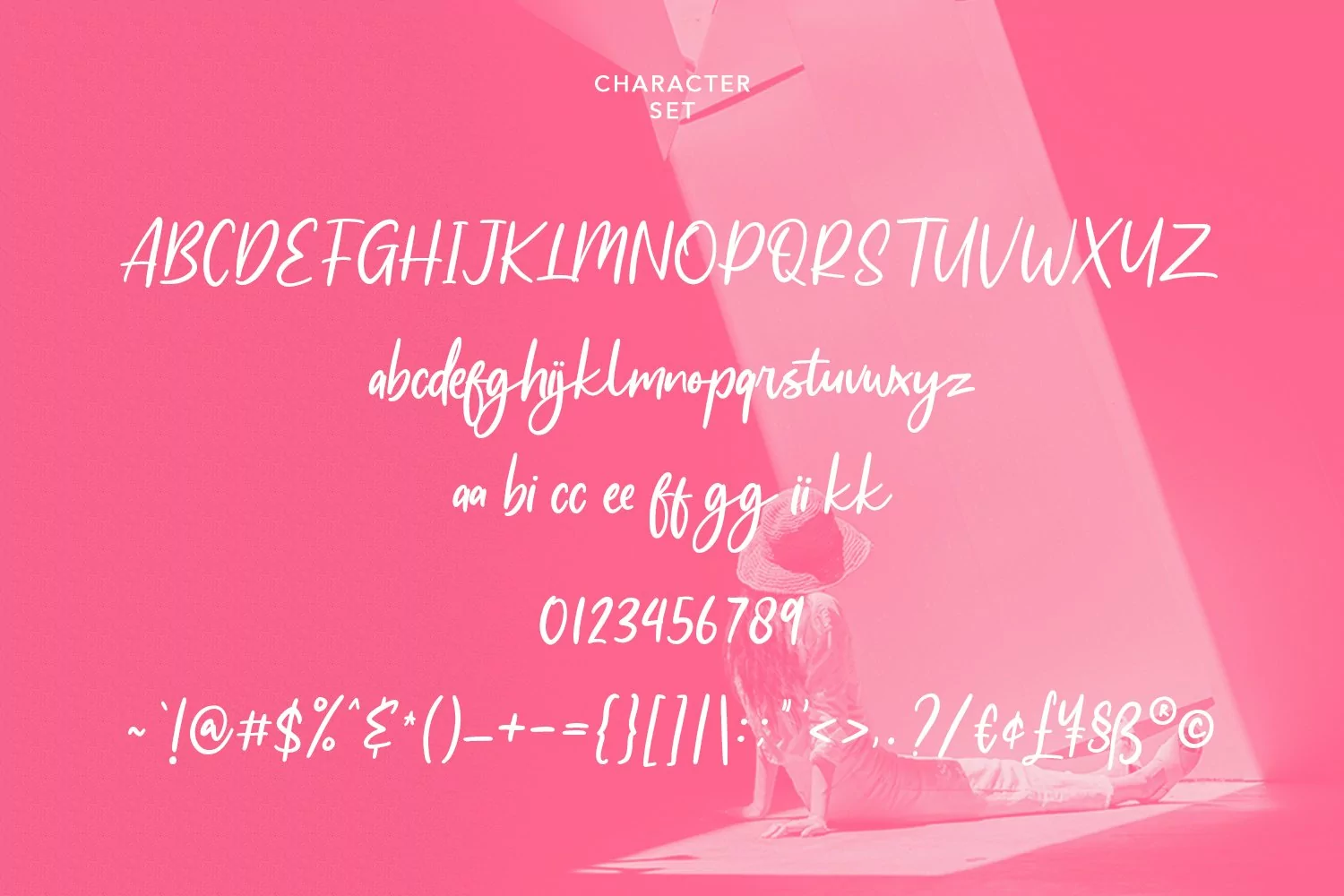
Adoredly is simply casual script font, with bold mono-line stroke, slant and fun character. It has Opentype features ligatures of character, To give you an extra creative work. Adoredly script font support multilingual more than 100+ language. This font is good for logo design, Social media, Movie Titles, Books Titles, a short text even a long text letter and good for your secondary text font with sans or serif. Make a stunning work with Adoredly font.